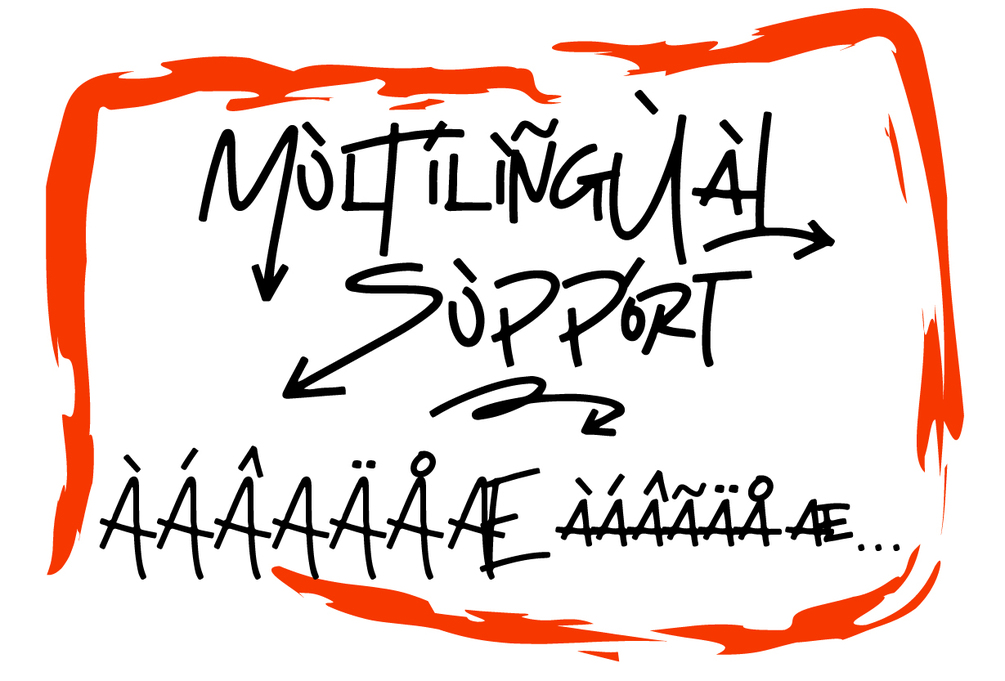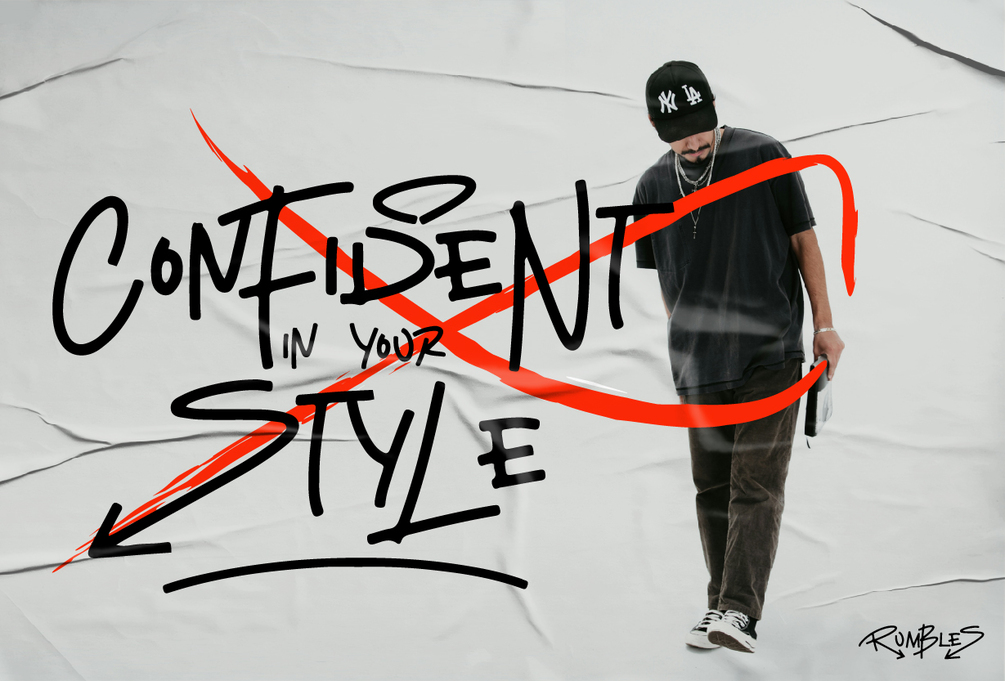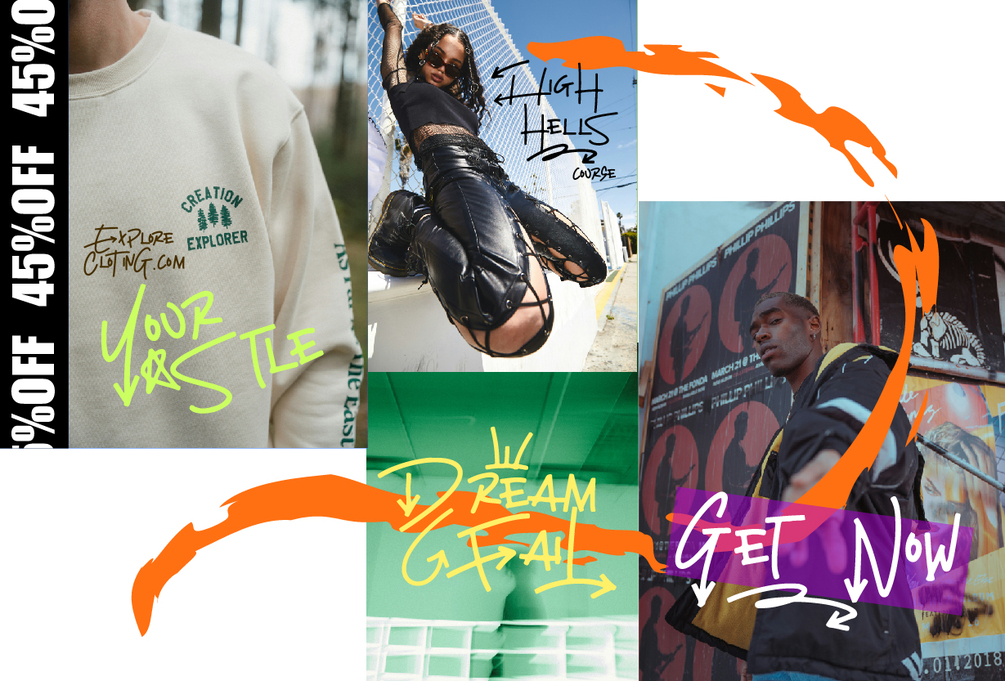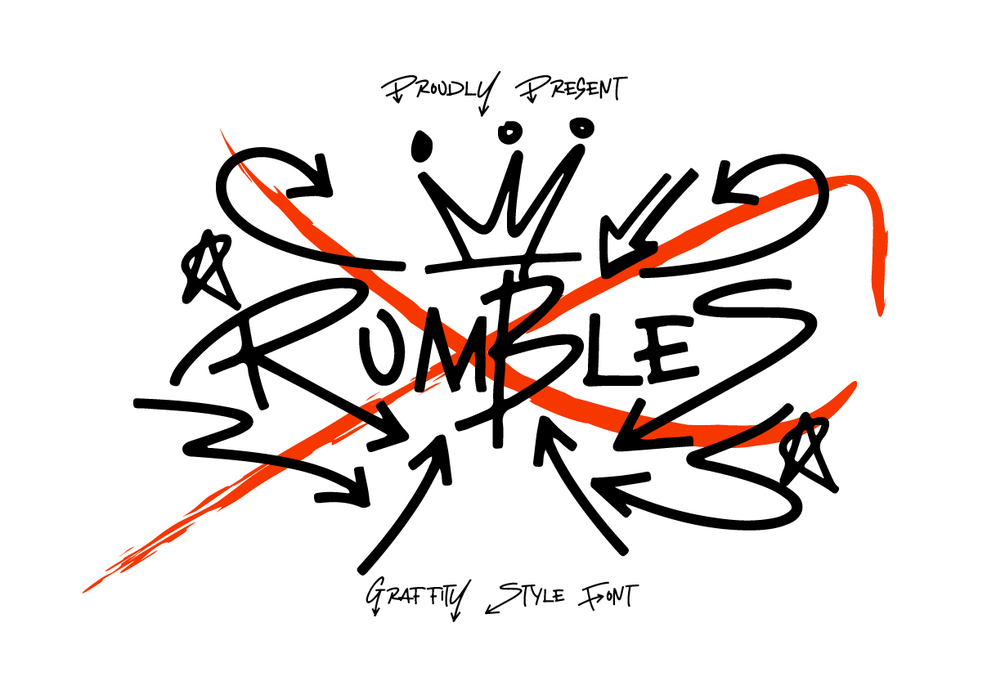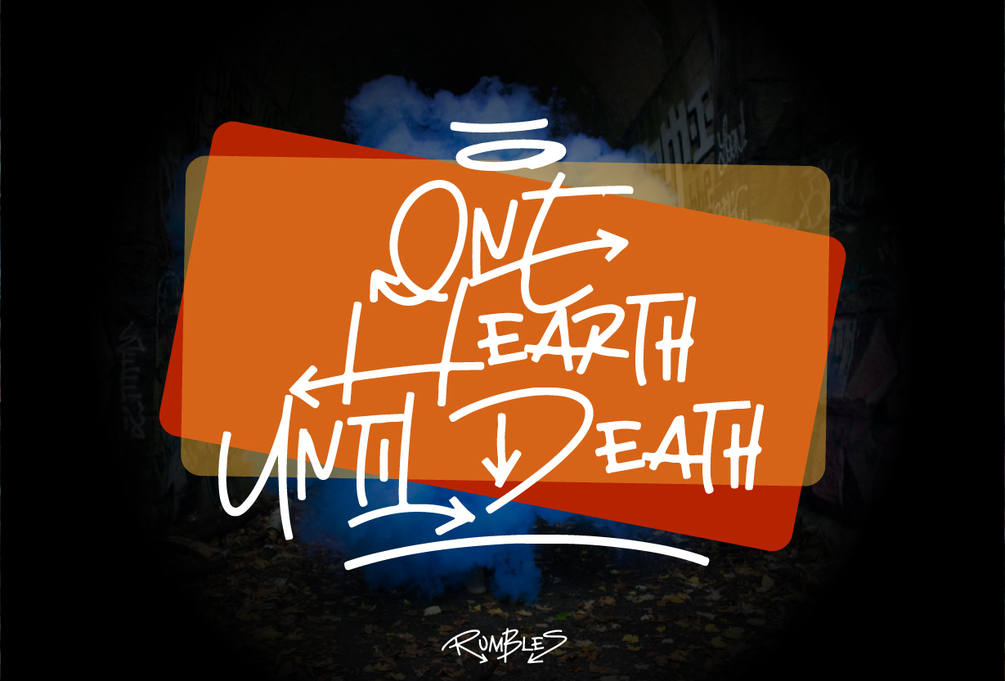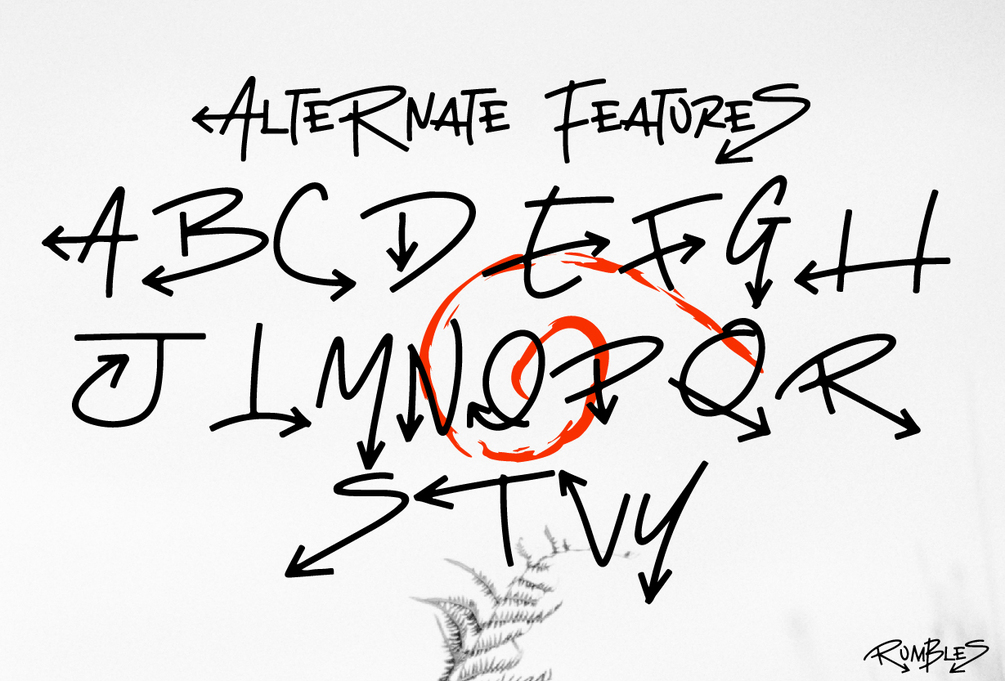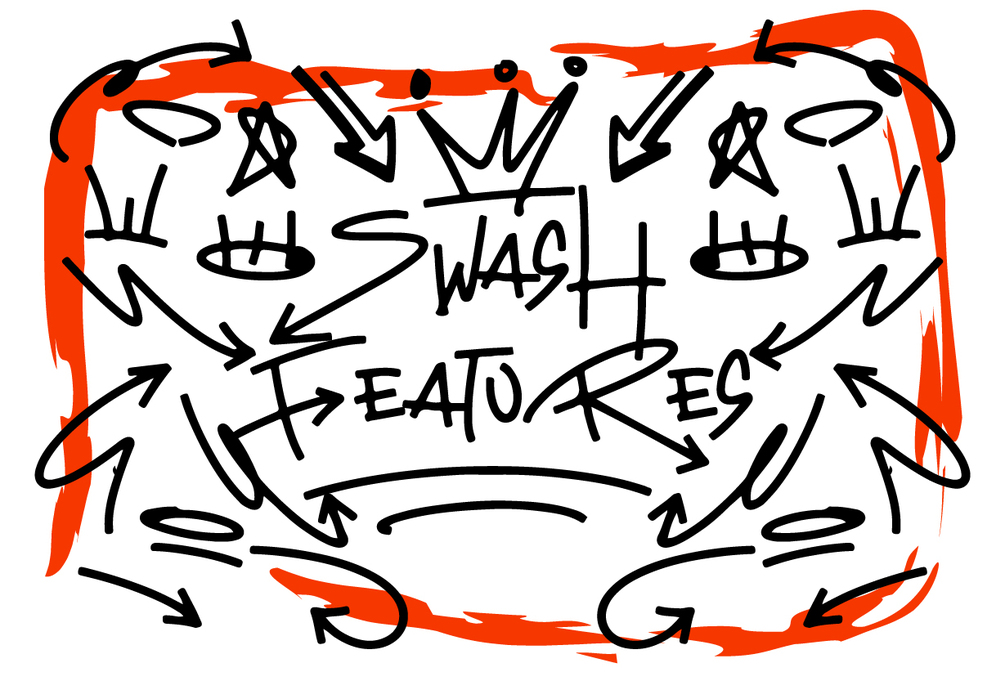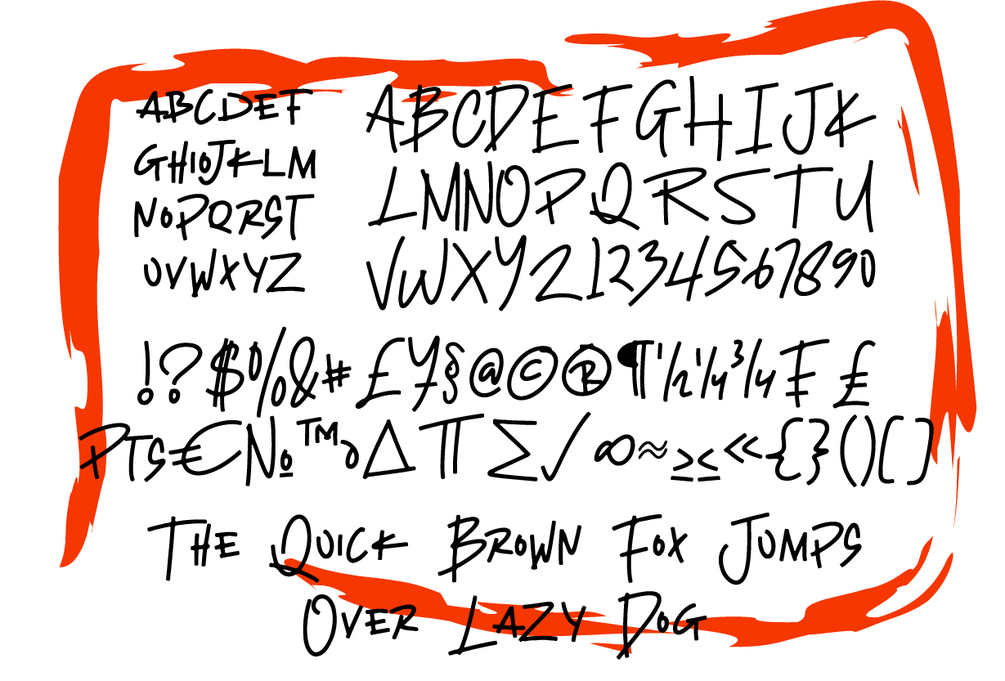
Rumbles - Graffiti Type
Hello creators Introducing Rumbles inspired by the graffiti style with thin lines that have a unique appearance with additional variations in Alternates. accompanied by additional ornaments that you can adjust to your own style. can be applied such as, Design, image style, etc.
FEATURES;
- Supports Foreign Languages, Numbers, and Punctuation.
- Alternates,and ornaments